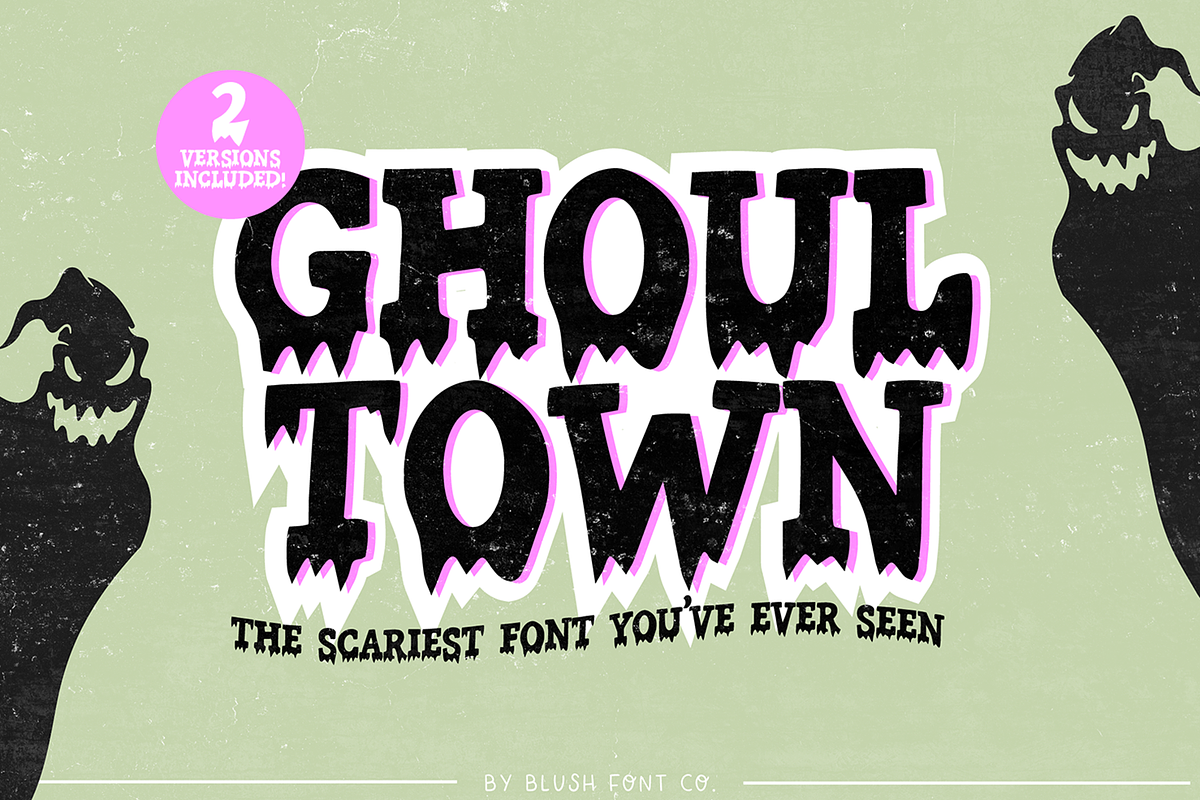
GHOUL TOWN Halloween Drip Fonts Free Download is a spooky and bold typeface designed to bring eerie vibes and Halloween fun to your designs. Featuring dripping, ghostly letterforms and a distressed texture, GHOUL TOWN is perfect for creating creepy posters, haunted house flyers, party invitations, and Halloween-themed branding.
This font combines a fun, playful style with a chilling, horror-inspired aesthetic, making it ideal for projects that need a touch of fright and fun. Whether you're designing a Halloween event poster, a chilling social media graphic, or a spooky logo, GHOUL TOWN adds a dramatic and playful touch to your typography.